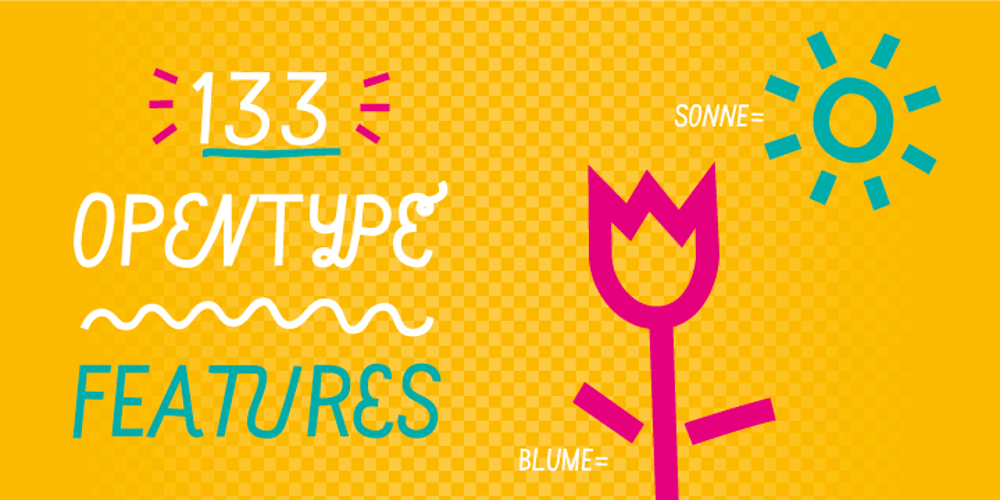
Geli Font Family was designed by Tobias Gutmann and published by Volcano Type. Geli contains 1 styles and family package options. It’s a mixture of digital exactness and analog freedom. With over 130 Opentype features, the font can change its look from strict to charming twirly. GELI offers many different ways to highlight words, which gives the font a personal character. It is a powerfull corporate font with a wide range to play with. Tobias Gutmann designed the Font in 2009/10 in the Typoclub which is part of the Hochschule der Künste Bern.